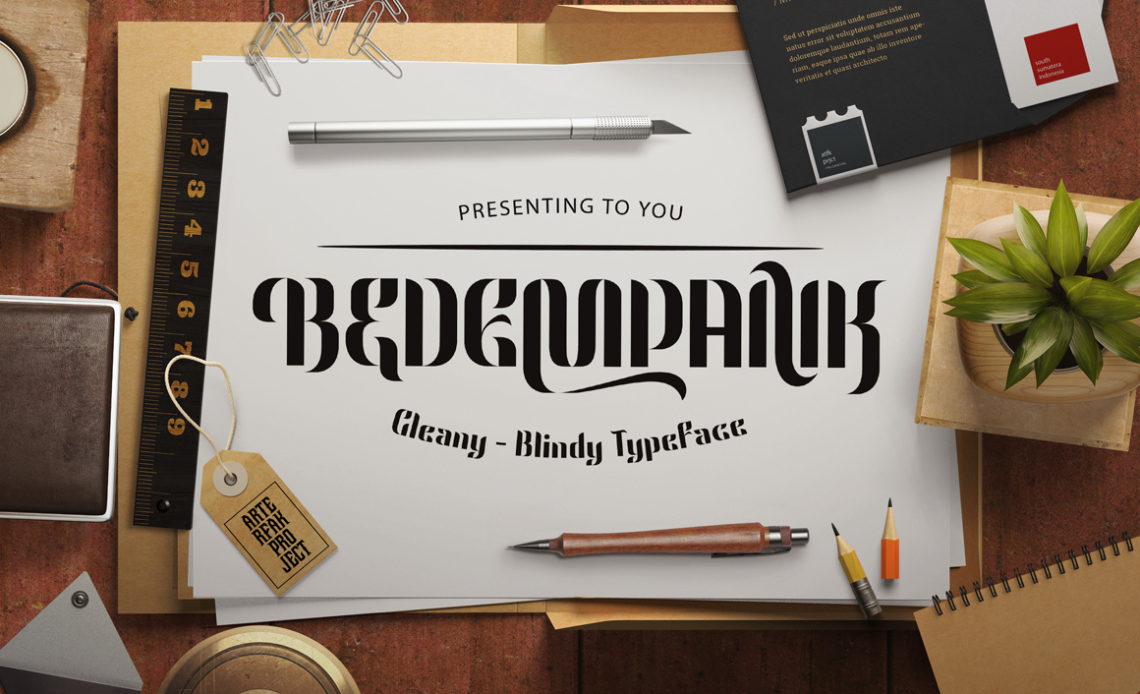
Bedempank Font
Meet Bedempank, the font that defies expectations.
At first glance, this display font exudes strength and boldness. But look closer, and you'll discover a hidden softness that adds a touch of elegance to any design. Bedempank is the perfect choice for making a statement without overpowering your message.
Whether you're creating logos, posters, or social media graphics, Bedempank will help you capture attention and convey your message with impact. Its unique character is sure to turn heads and make your designs stand out from the crowd.